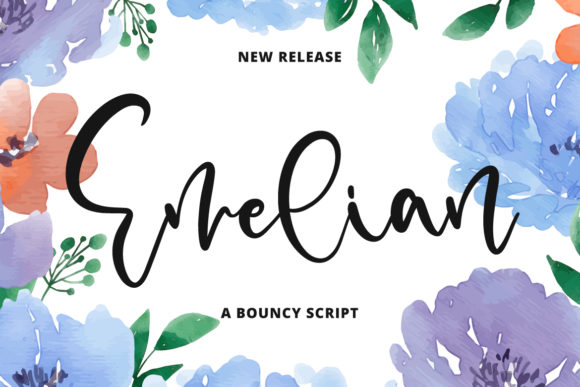
Introducing Emelian Font: The Timeless Handwritten Font for Stunning Designs
Are you a designer or crafter looking for a font that can add a touch of elegance and personality to your creations? Look no further than Emelian Font, a lovely and timeless handwritten font that is perfect for creating eye-catching logos, branding, and quotes.
The Unique Charm of Emelian Font
Emelian Font is a beautifully crafted handwritten font that boasts a unique and beautiful touch. Every letter has been carefully designed to bring a sense of warmth and personality to your designs. The font’s timeless quality ensures that it will never go out of style, making it a great investment for designers and crafters who want to create stunning works that will stand the test of time.
Emelian Font is the perfect choice for creating eye-catching logos, branding, and quotes. Its elegant and cursive design makes it ideal for use in a variety of design projects, from business cards and brochures to social media graphics and website headers. Whether you’re looking to create a professional and sophisticated look or a more playful and creative vibe, Emelian Font is the perfect tool for the job.
What Sets Emelian Font Apart
- Unique and Beautiful Touch: Every letter in Emelian Font has been carefully crafted to bring a unique and beautiful touch to your designs.
- Timeless Quality: Emelian Font has a timeless quality that ensures it will never go out of style.
- Elegant and Cursive Design: The font’s elegant and cursive design makes it perfect for use in a variety of design projects.
- Easy to Read: Despite its elegant design, Emelian Font is easy to read, making it perfect for use in body text and other applications where readability is key.
Tips for Using Emelian Font in Your Designs
- Use it as a Headline Font: Emelian Font is perfect for use as a headline font, where its elegant and cursive design can really shine.
- Pair it with a Sans-Serif Font: For body text and other applications where readability is key, pair Emelian Font with a sans-serif font to create a beautiful and harmonious contrast.
- Experiment with Different Colors: Emelian Font looks great in a variety of colors, so don’t be afraid to experiment and find the perfect shade to match your brand or design.
| Font Name | Emelian Font |
| Author | Fallengraphic |
Key Features of Emelian Font
| Font Style | Handwritten |
| Language Support | Latin |
| Characters | Uppercase and Lowercase Letters, Numbers, Punctuation Marks |